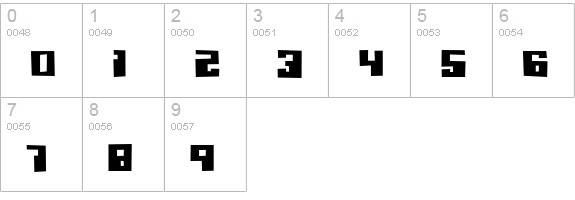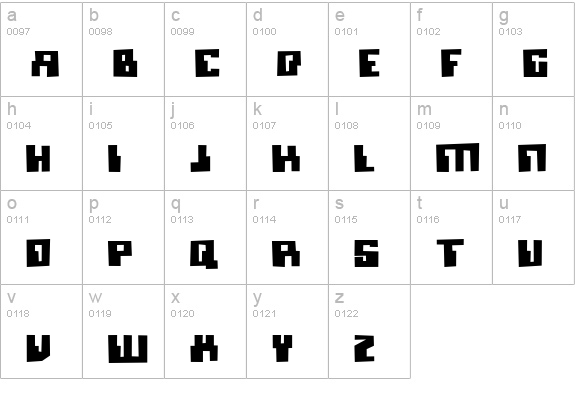
Micronian Blown font is a captivating and innovative display typeface that exudes a sense of modernity and creativity. Its sleek and dynamic design features sharp edges and bold lines, making it perfect for grabbing attention and making a statement. The unique geometric shapes and intricate details of Micronian Blown font give it a futuristic and avant-garde feel, making it ideal for projects that require a touch of originality and sophistication. This stunning font is not only visually striking but also versatile, lending itself well to a variety of design projects such as logos, posters, headlines, and more. Its bold and impactful appearance is sure to make any text stand out and leave a lasting impression on viewers. Best of all, Micronian Blown font is completely free to download at FontsMarket.com, making it accessible to designers and creatives looking to elevate their projects with a touch of modern flair. Don't miss out on this unique and eye-catching typeface that is sure to add a touch of style and sophistication to your designs.